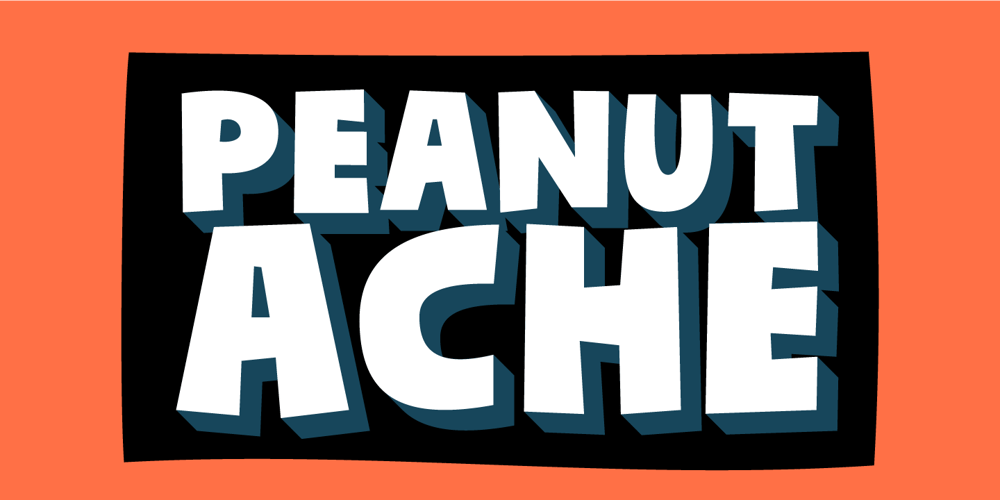
Peanut Ache Font Family was designed by Jakob Fischer and published by PizzaDude.dk. Peanut Ache contains 2 styles and family package options. I don’t know what it is with me and peanuts. I simply love it! I like peanuts in all kinds of meals: breakfast, lunch, dinner and even in desserts!But with an addiction like this, an overload of peanuts sometimes appear…and I guess that’s where the name of this font comes from :)The Peanut Ache font is super clean, and super steady – use it for anything that needs a clean look!I’ve added 5 slightly different versions of each letter, and this really helps making your text to look even more fresh and lively!